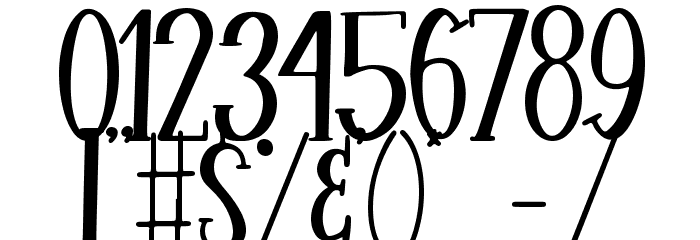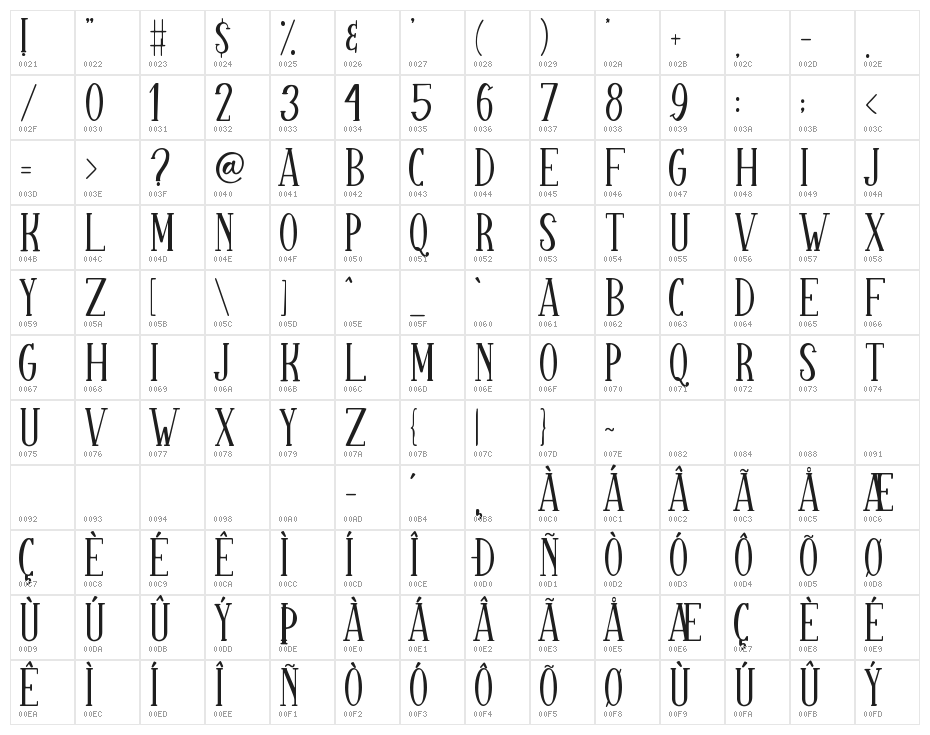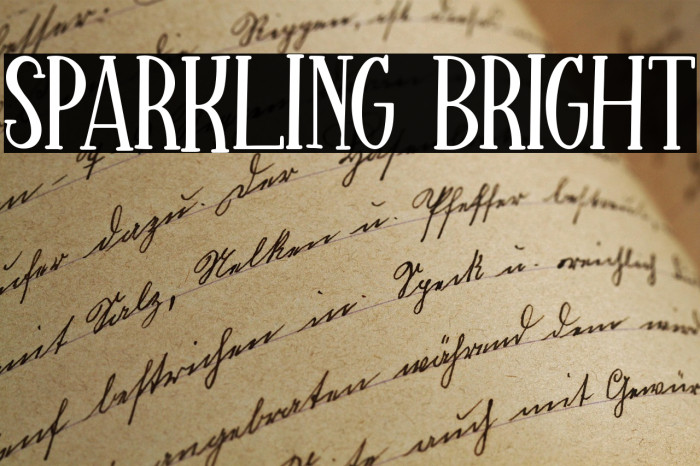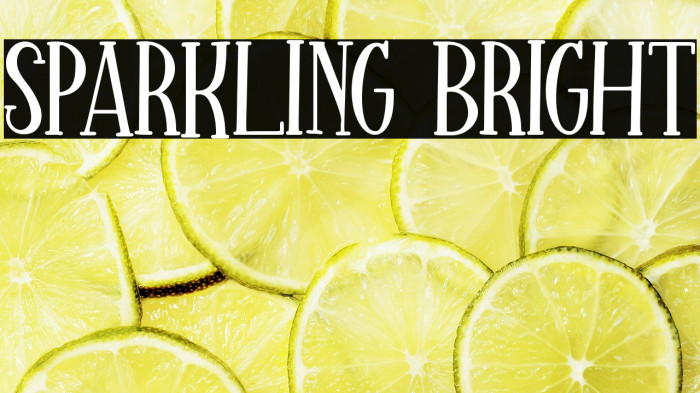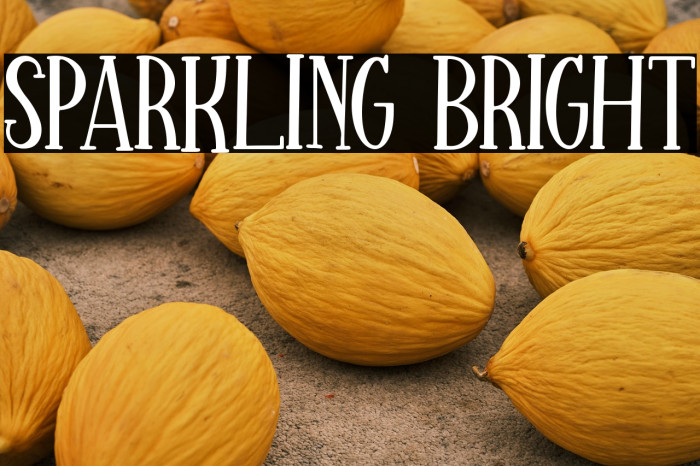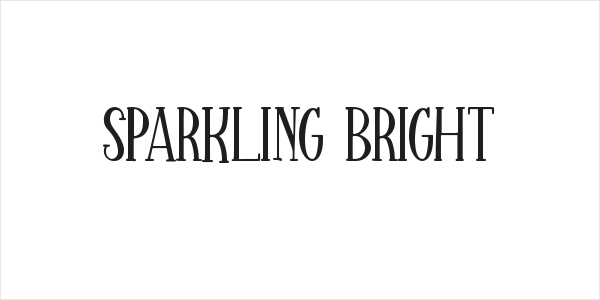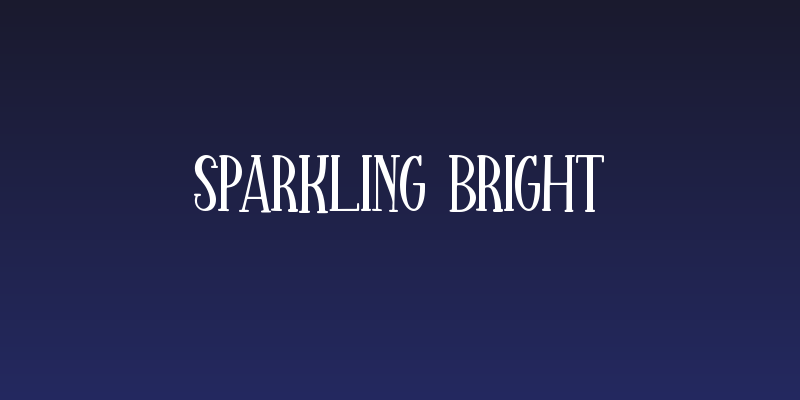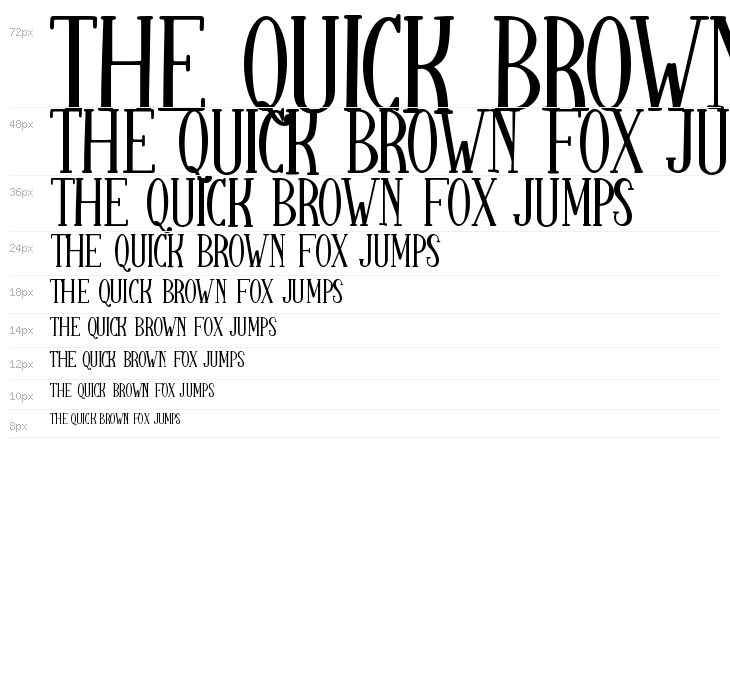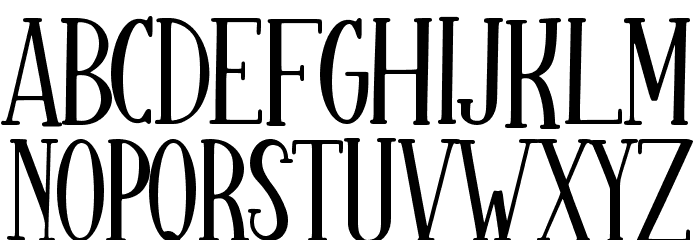
Sparkling Bright Font
Sparkling Bright Description
This font features a tall and narrow design with a distinct elegance, characterized by its elongated serifs and high contrast between thick and thin strokes. The uppercase letters are particularly striking, with a vertical emphasis that gives them a sophisticated and formal appearance. The lowercase letters maintain this elegance with a slightly more playful touch, offering a nice balance between formality and approachability. The numerals are bold and clear, ensuring readability, while the special characters add a unique flair with their stylish curves and lines. Overall, this font exudes a sense of refinement and grace, making it suitable for a variety of design projects.
| Proposed Projects | Ideal for wedding invitations, luxury branding, editorial design, and elegant packaging. |